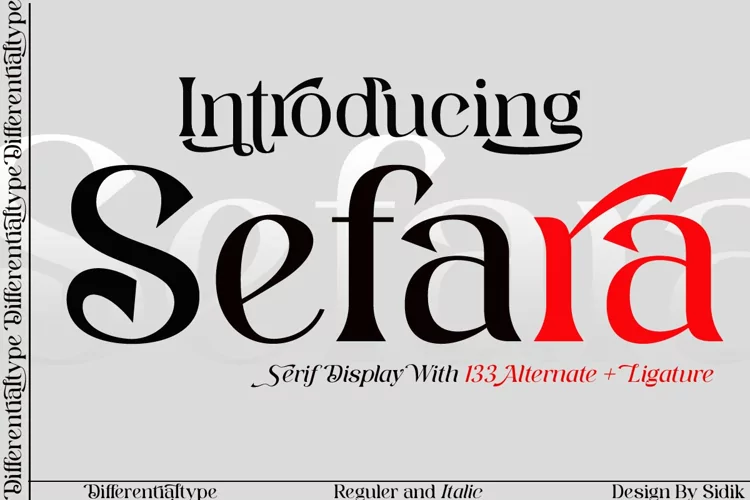
Sefara
Sefara is a stylish and authentic serif font. It has a classy, elegant and modern look that can be used for logos, branding, invitations, stationery, wedding designs, social media posts, and much more! Sefara is PUA encoded which means you can access all glyphs and swashes with ease!
Sefara